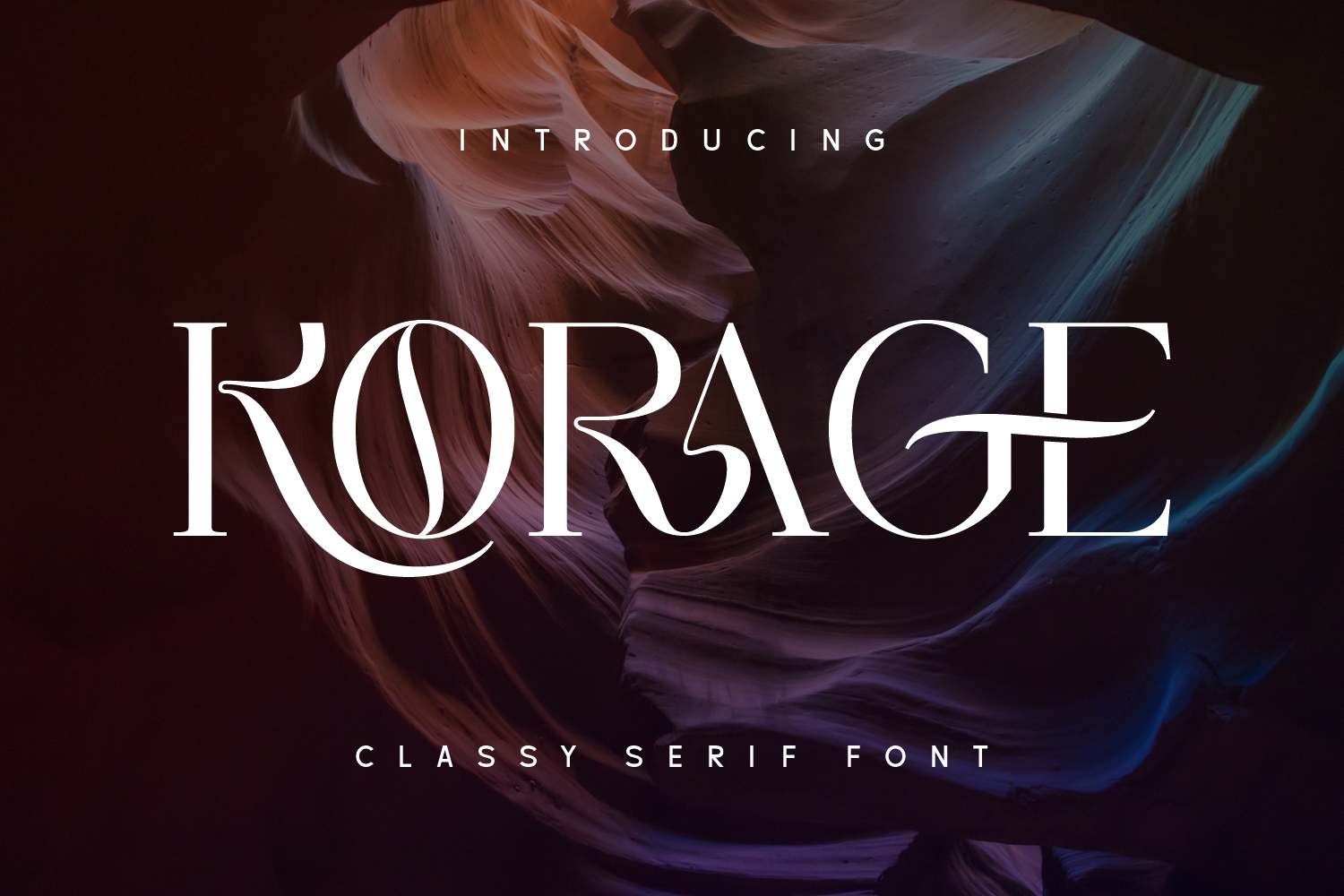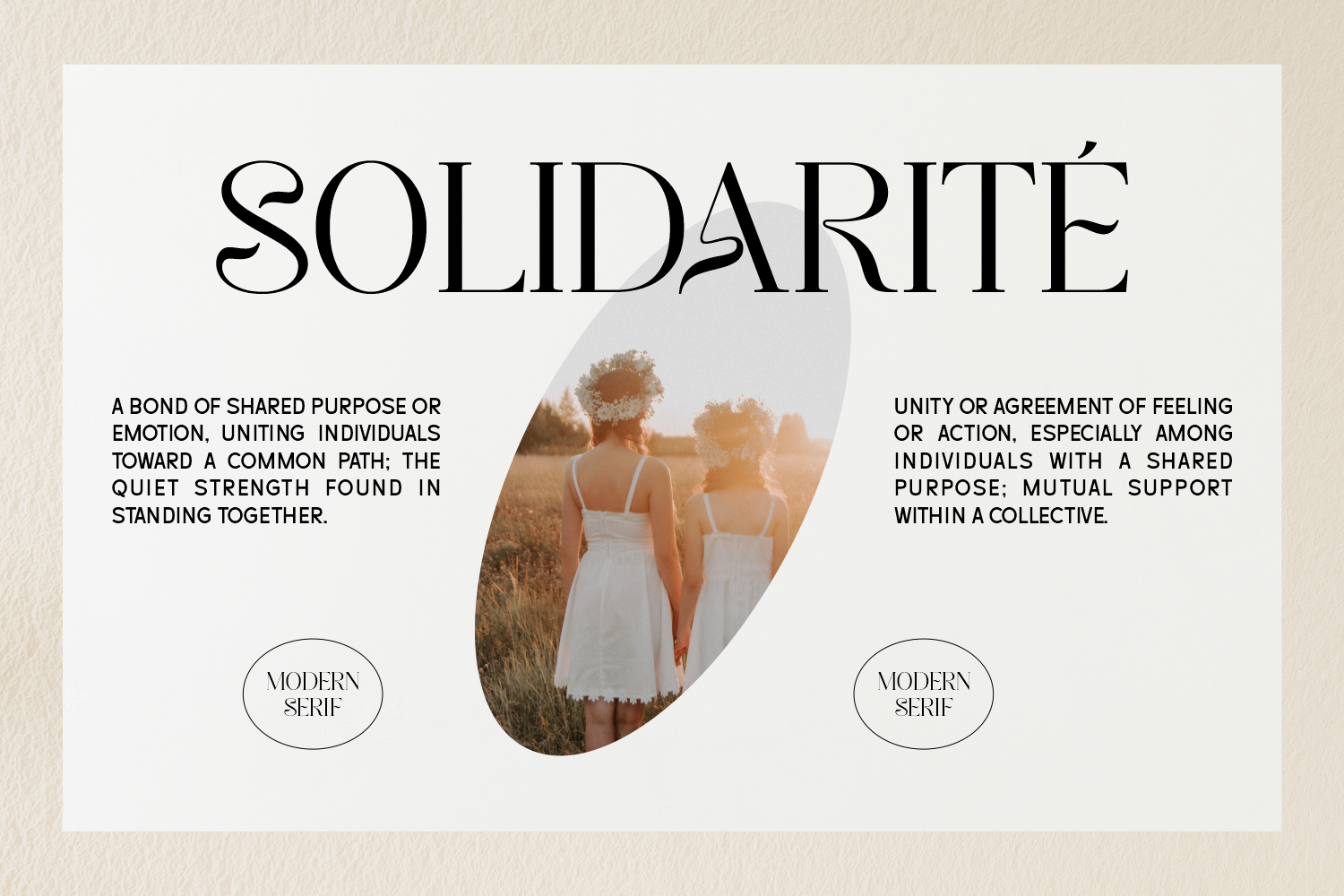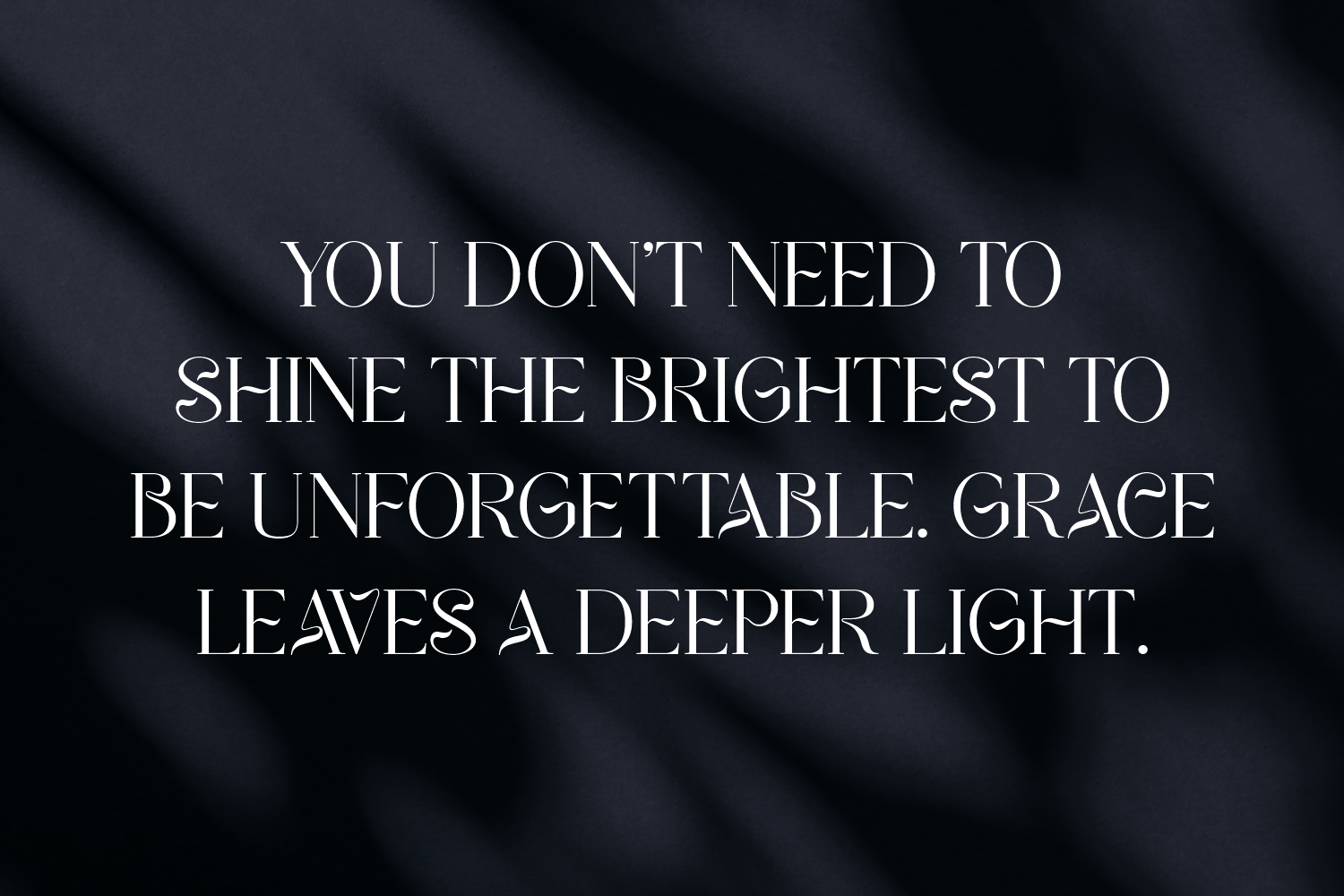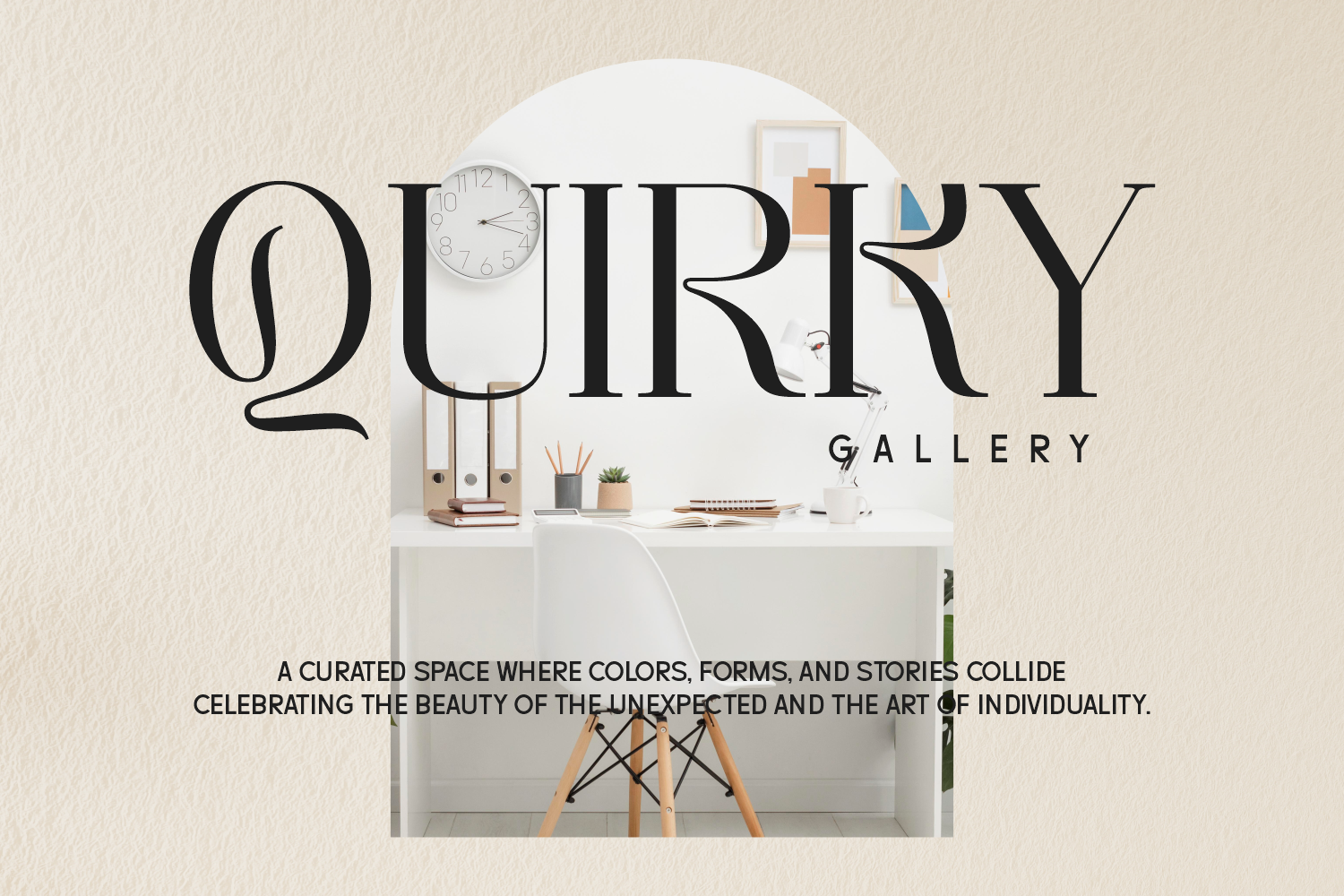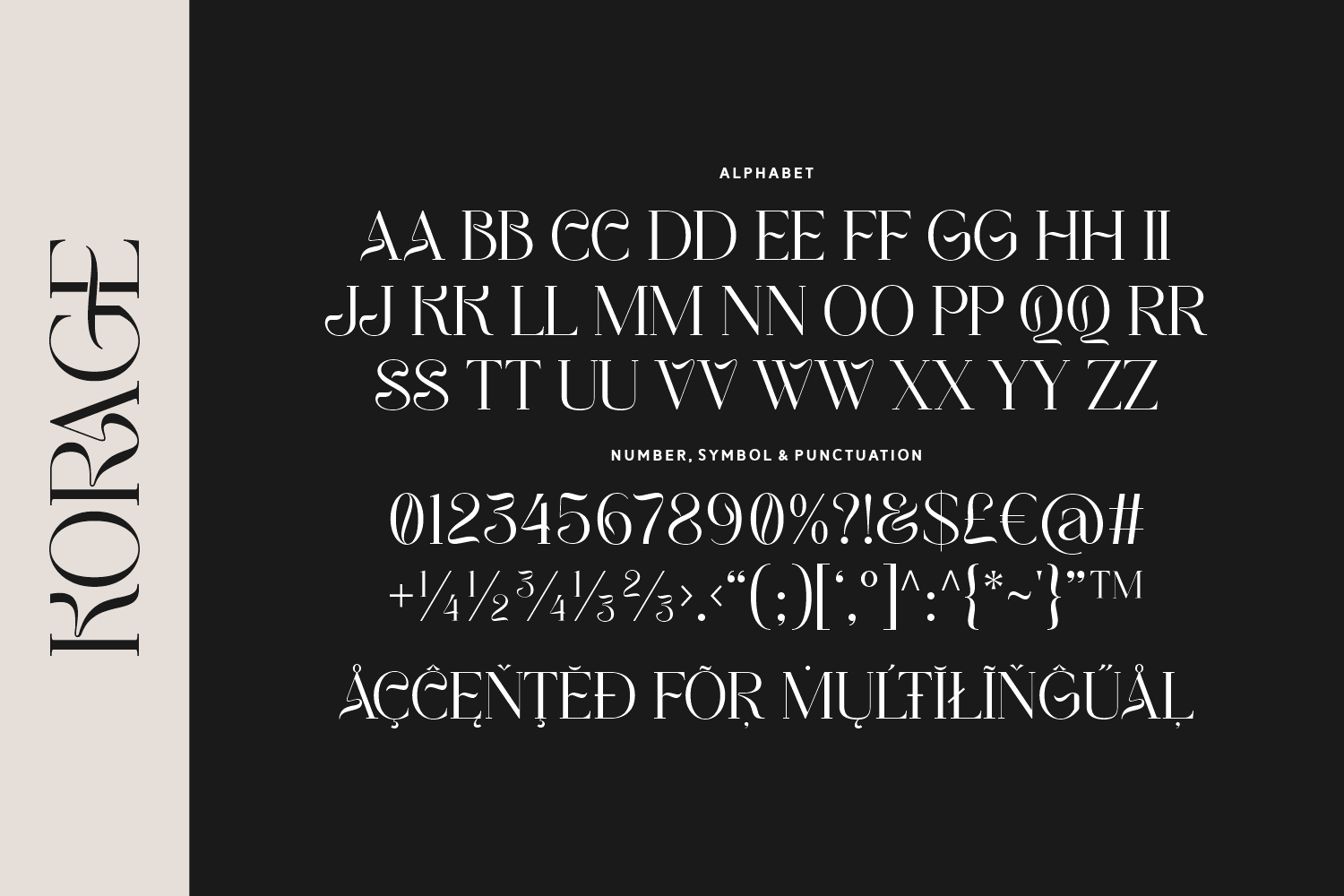
Korage is a classy serif font with a fearless spirit. Its unique ligatures and luxurious stroke contrast make it ideal for high-fashion editorials, bold logos, or statement quotes. It’s bold, brave, and breathtakingly refined.
Sophistication with a daring edge.